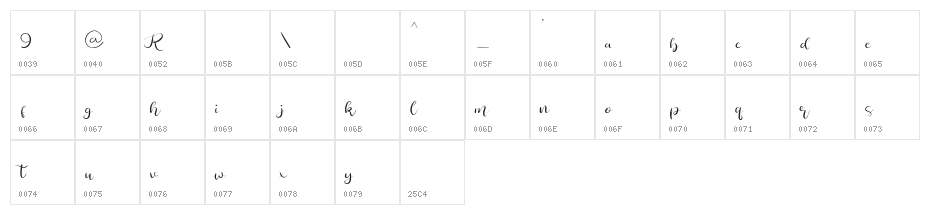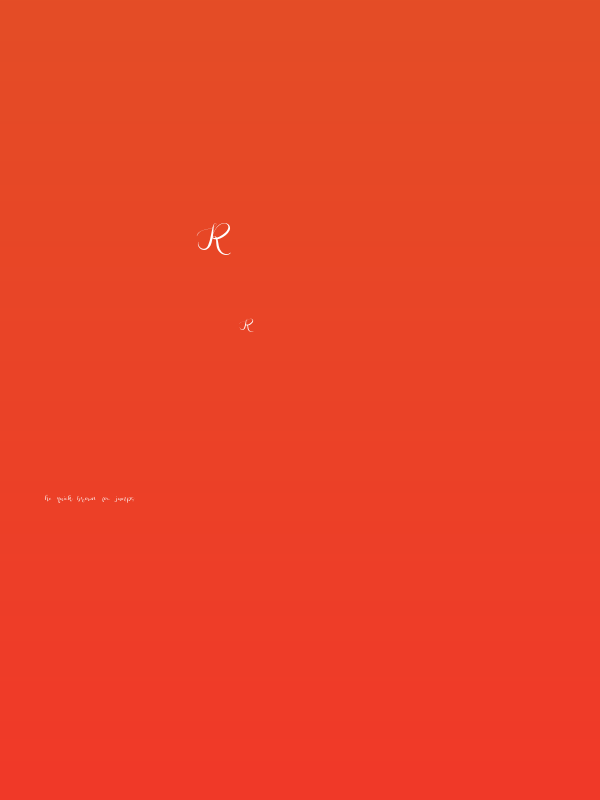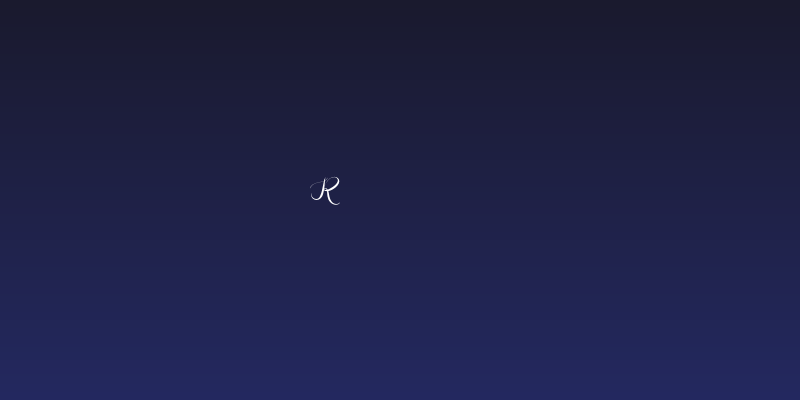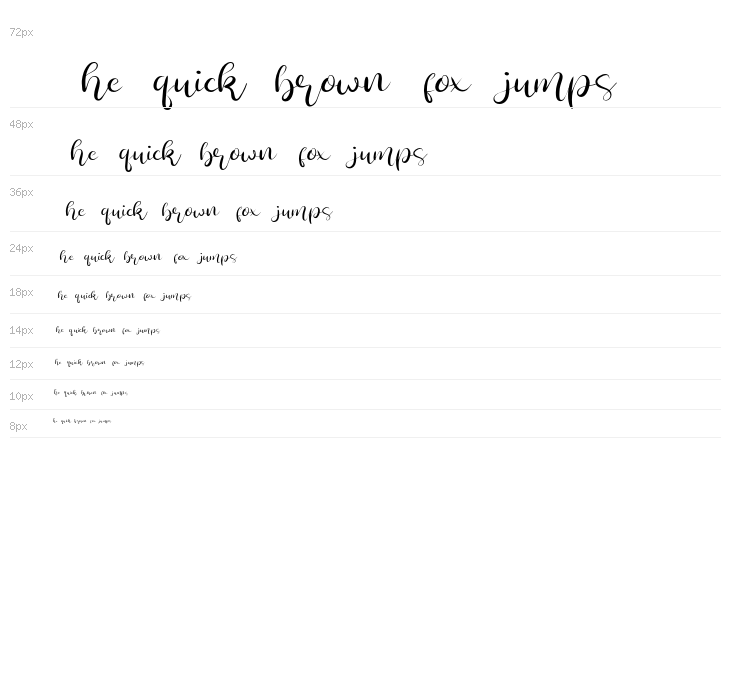
Rapsodie Font
Rapsodie Description
This elegant script font features a flowing, cursive style with intricate loops and flourishes. The characters are delicately crafted, giving a sense of sophistication and grace. The uppercase letters are particularly ornate, with sweeping strokes that add a touch of drama. The lowercase letters maintain a consistent flow, enhancing readability while still retaining an artistic flair. The font's design is reminiscent of traditional calligraphy, making it suitable for formal invitations, elegant branding, and decorative purposes. Its unique style captures attention and conveys a sense of luxury and refinement.
| Overall Style | Elegant, Decorative |
| Use Case | Invitations, Branding, Decorative |
| Proposed Projects | Ideal for wedding invitations, luxury branding, greeting cards, and decorative prints. |